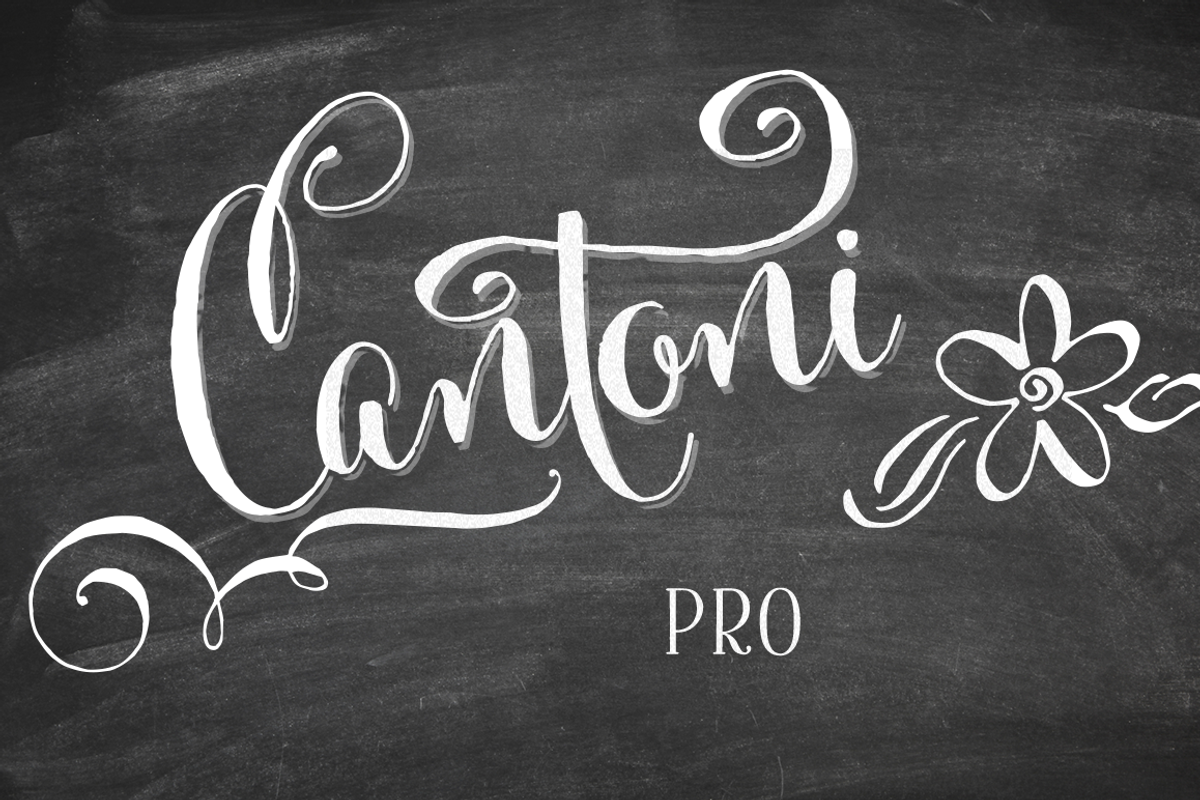
Cantoni Pro Hand Lettered Font Free Download is a charming and expressive typeface that captures the elegance of hand lettering with a playful twist. Please note, you are required to purchase this font for commercial use. It is available for free download for testing and personal projects only.
Crafted with personality and flair, Cantoni Pro is perfect for wedding invitations, branding, greeting cards, logos, and upscale packaging. Its flowing lines and decorative alternates give your designs a custom, handcrafted look that feels both professional and personal.
By choosing Cantoni Pro Hand Lettered Font Free Download, you're getting a feature-rich, OpenType font that installs effortlessly and works beautifully across all major design platforms. Whether you're designing for romance, celebration, or lifestyle, Cantoni Pro delivers sophistication, warmth, and artistic detail in every letter.